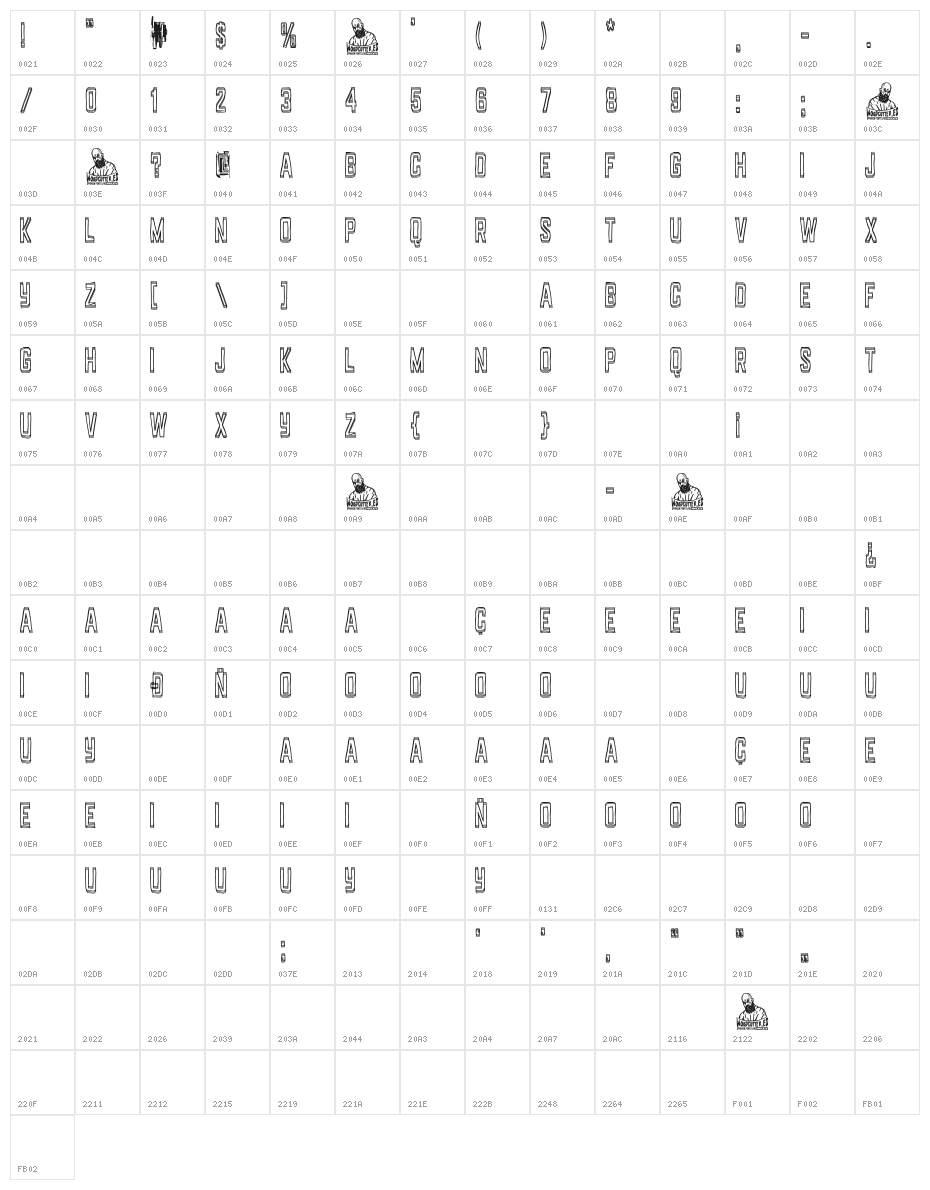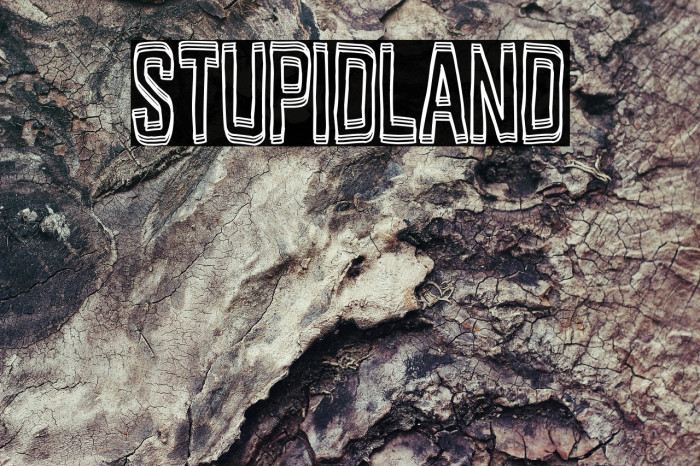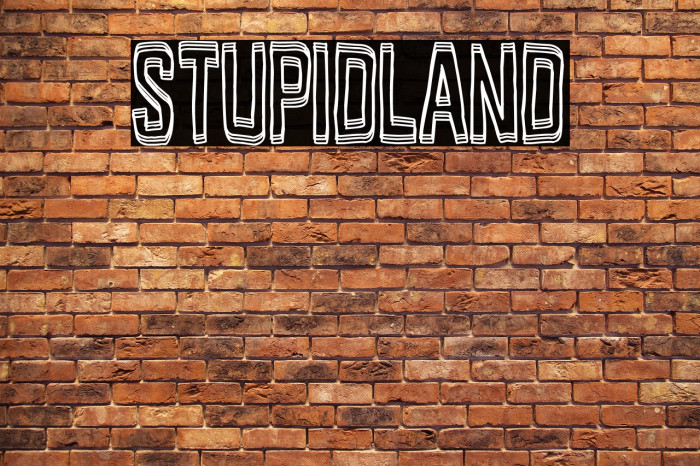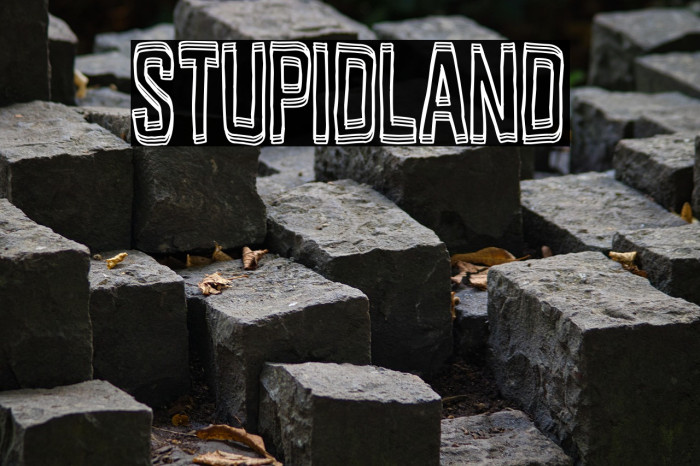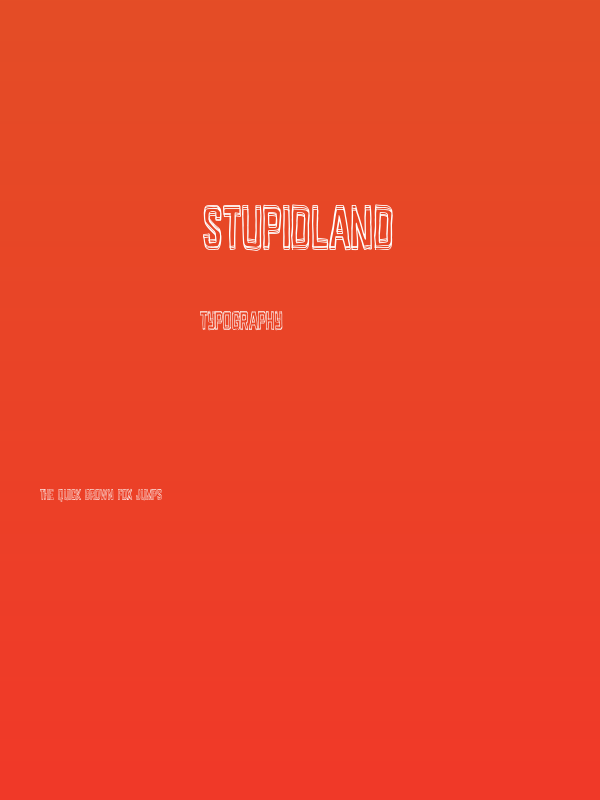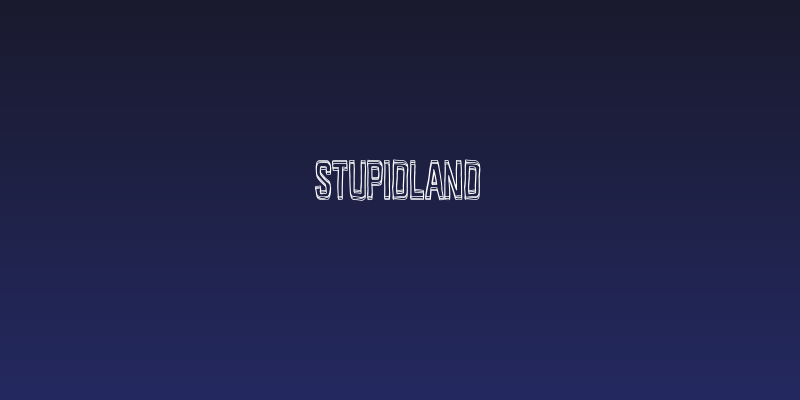
Stupidland Font
Stupidland Description
This font features a bold, hand-drawn style with a playful and slightly chaotic appearance. The letters are outlined with a double line, creating a sense of depth and movement. Each character has a unique, irregular shape, contributing to its whimsical and artistic feel. The font includes both uppercase and lowercase letters, numbers, and a variety of special characters. Its sketch-like quality makes it stand out, adding a creative and informal touch to any design.
| Proposed Projects | Ideal for creative projects such as posters, album covers, children's books, and artistic branding. |